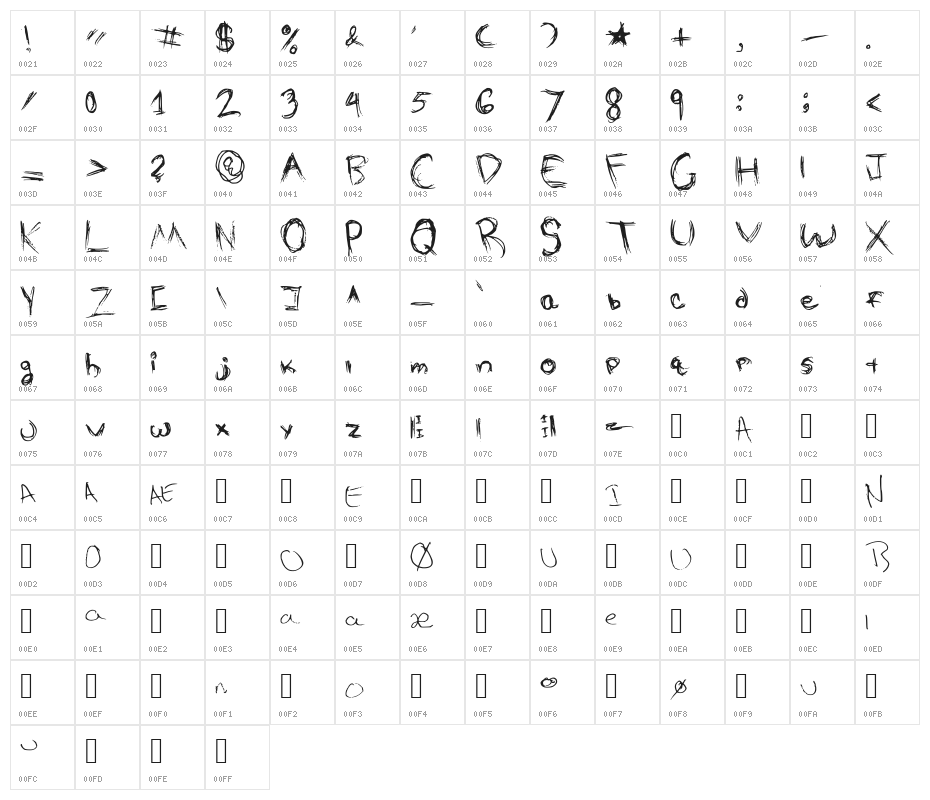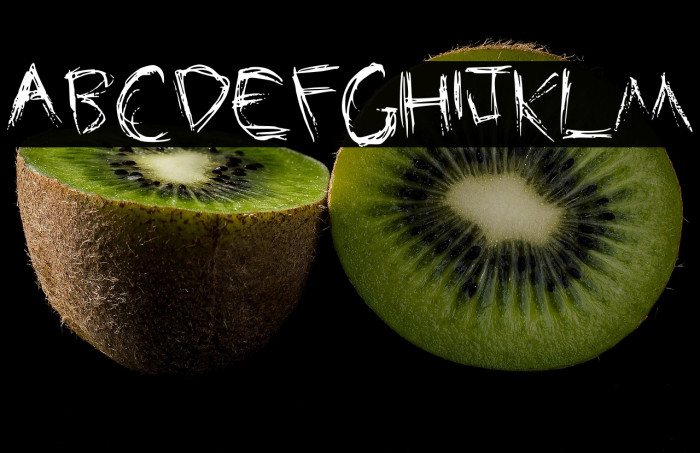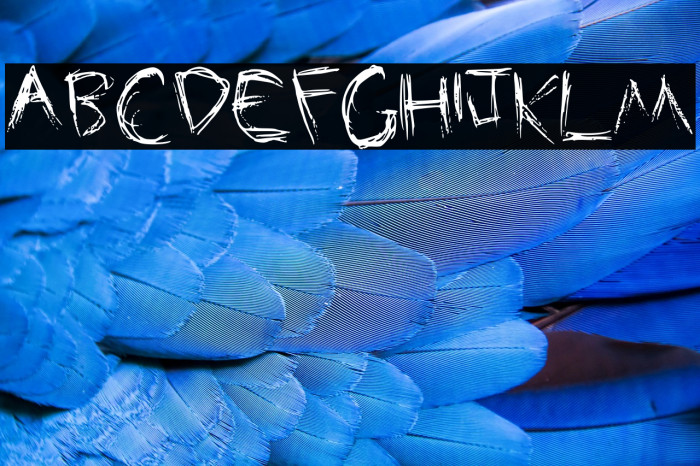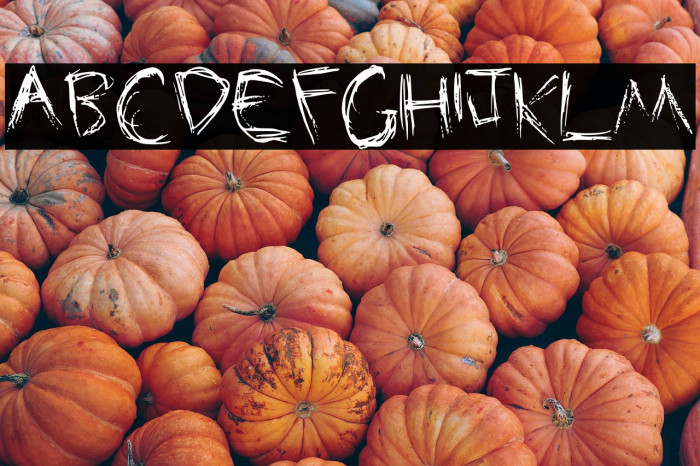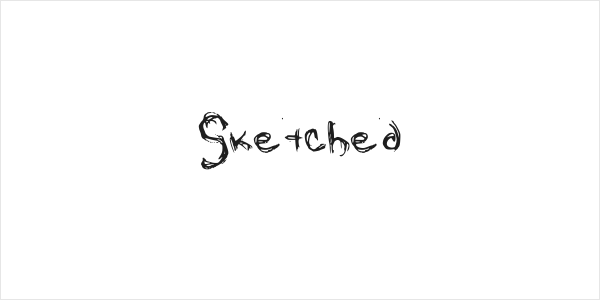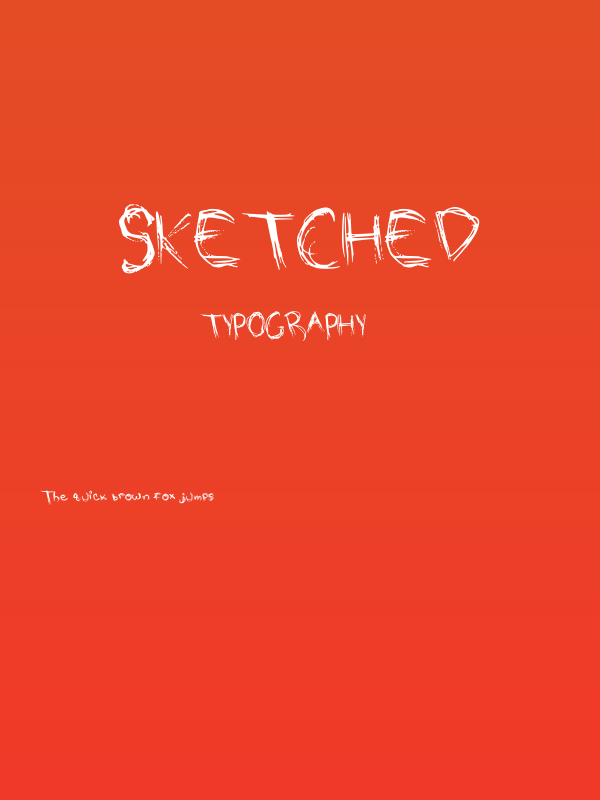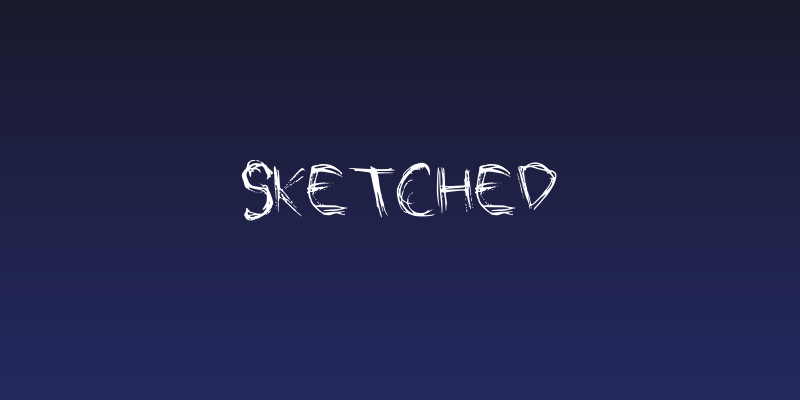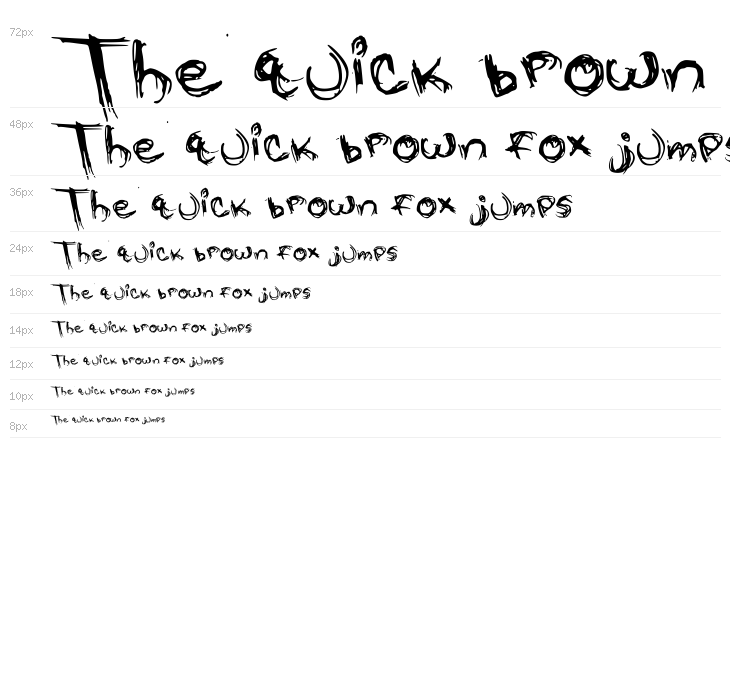
Sketched Font
Sketched Description
This font features a highly expressive and artistic design, characterized by its rough, hand-drawn appearance. The letters are irregular and dynamic, with strokes that vary in thickness, giving it a raw and energetic feel. The uppercase and lowercase letters maintain a consistent style, with jagged edges and a sketch-like quality. Numbers and special characters follow the same aesthetic, adding to the overall cohesive look. This font exudes a sense of creativity and spontaneity, making it ideal for projects that require a bold and unconventional style.
Overall StyleArtistic, Raw, Energetic
Use CaseHeadlines, Posters, Artistic Designs
Proposed ProjectsIdeal for creative projects such as album covers, posters, graffiti art, and any design that seeks to convey a sense of raw energy and artistic flair.